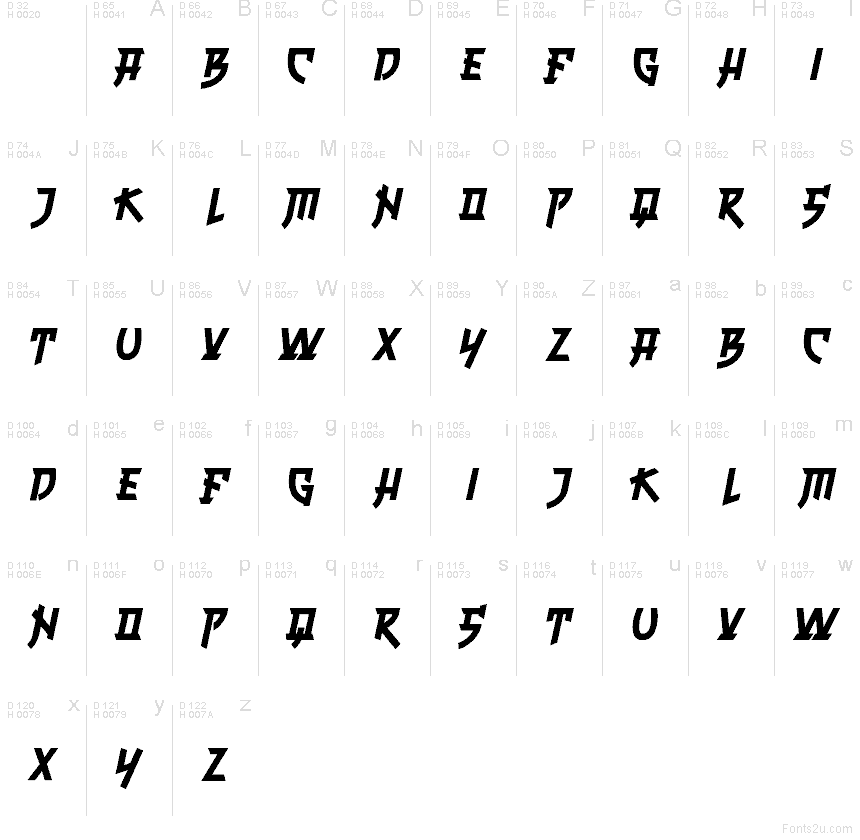
Modern Tokyo, by Vladimir Nikolic, is a free East Asian poster-style display font with the hard-edged drama of vintage Tokyo signage and manga title lettering. The letters lean into sharp diagonals, clipped corners, and blocky silhouettes that feel fast, loud, and urban rather than ornamental.
It fits streetwear branding, music posters, game title cards, ramen packaging, and cover lines where a free font needs a strong city-pop accent without drifting into brush script or techno cliches. Because the forms are so compressed and angular, it works best in short bursts - logos, monograms, and compact headlines where that jagged rhythm can do the talking.
Modern Tokyo